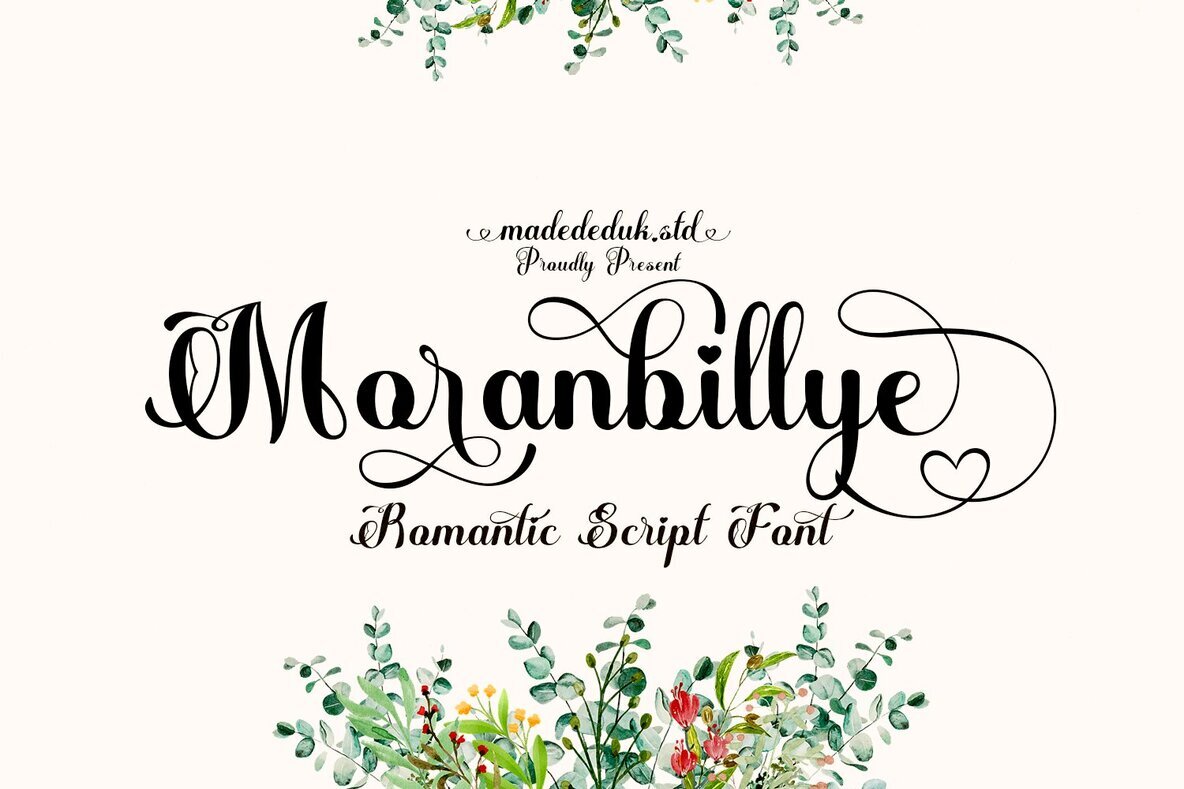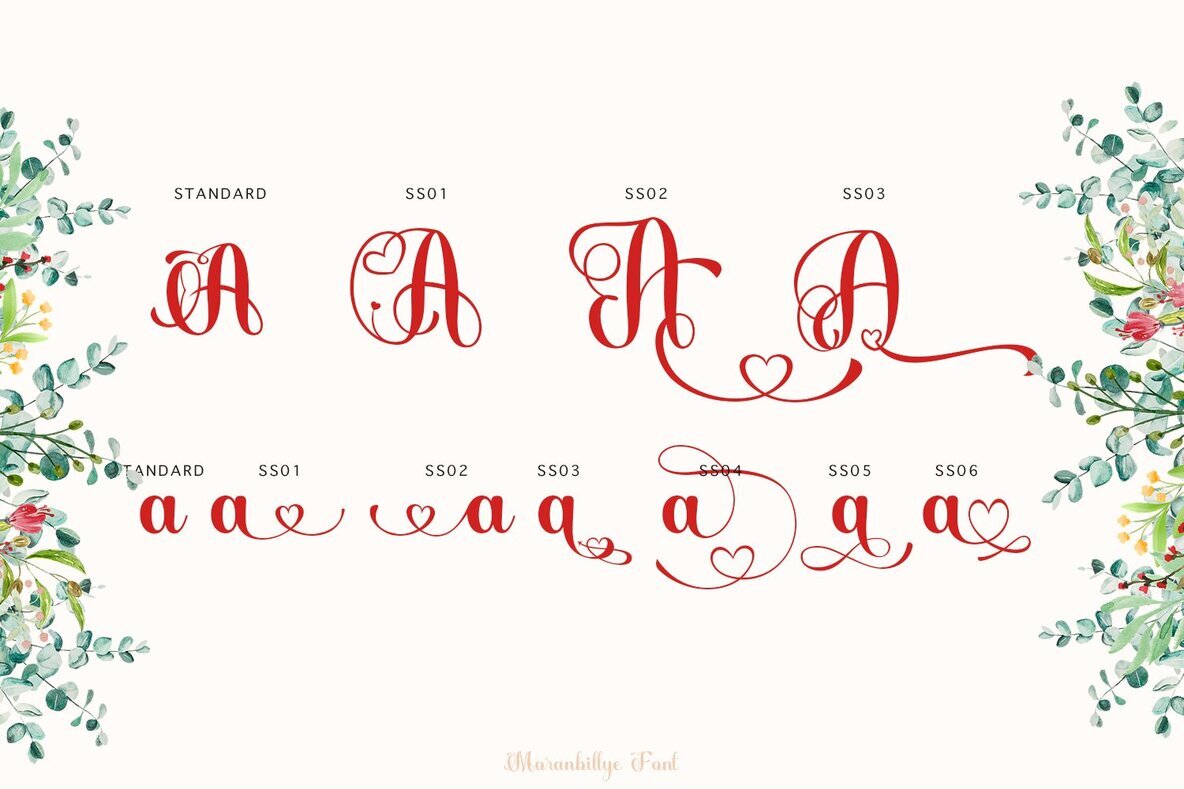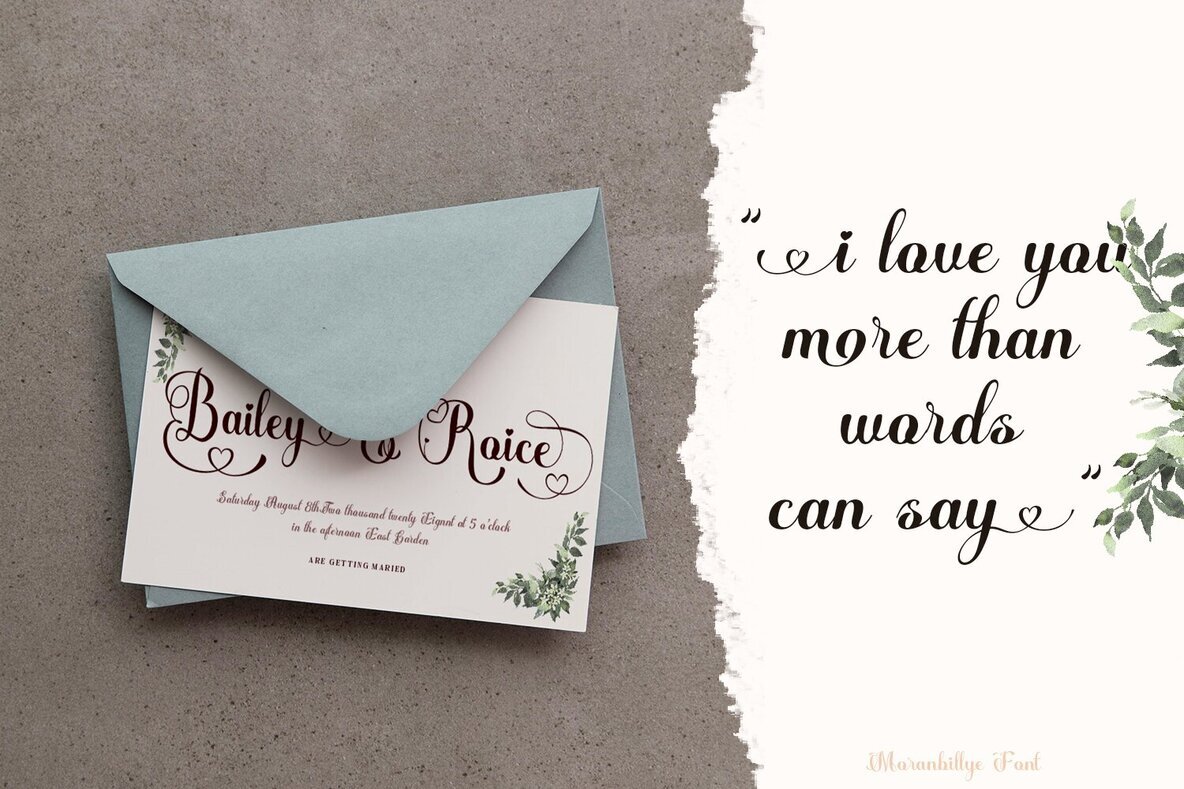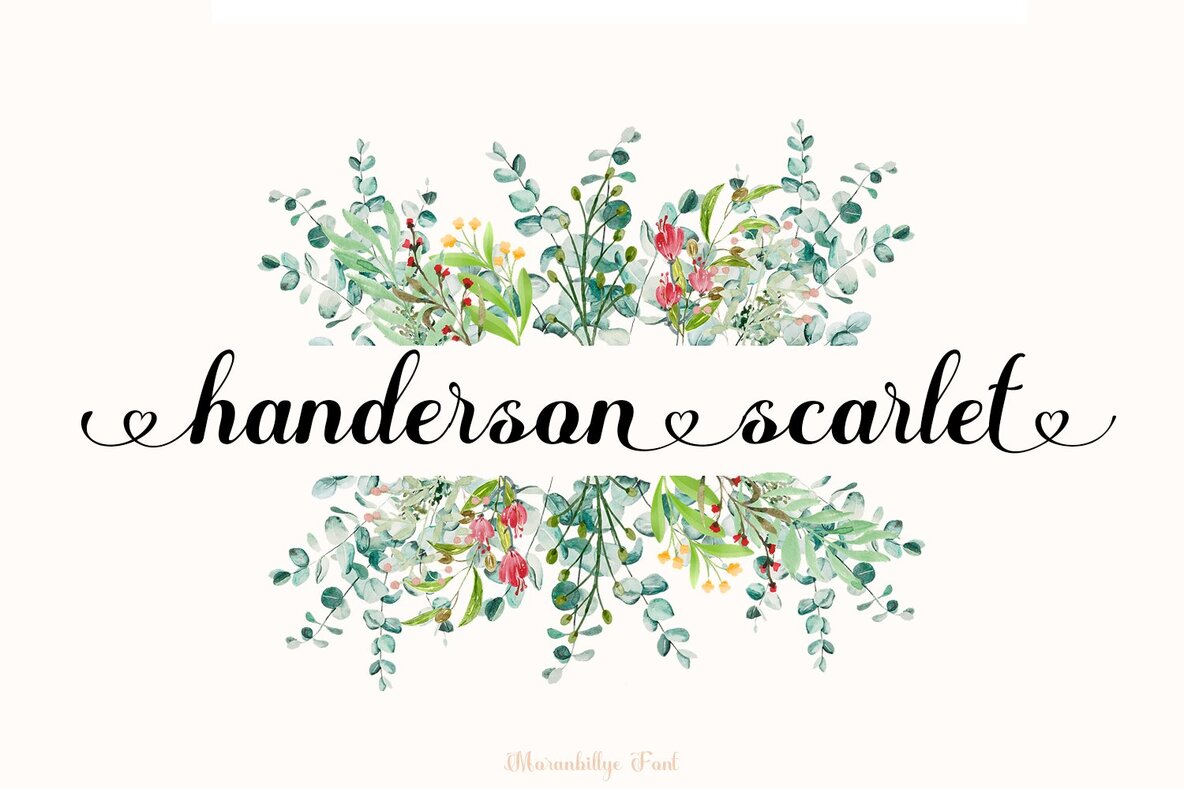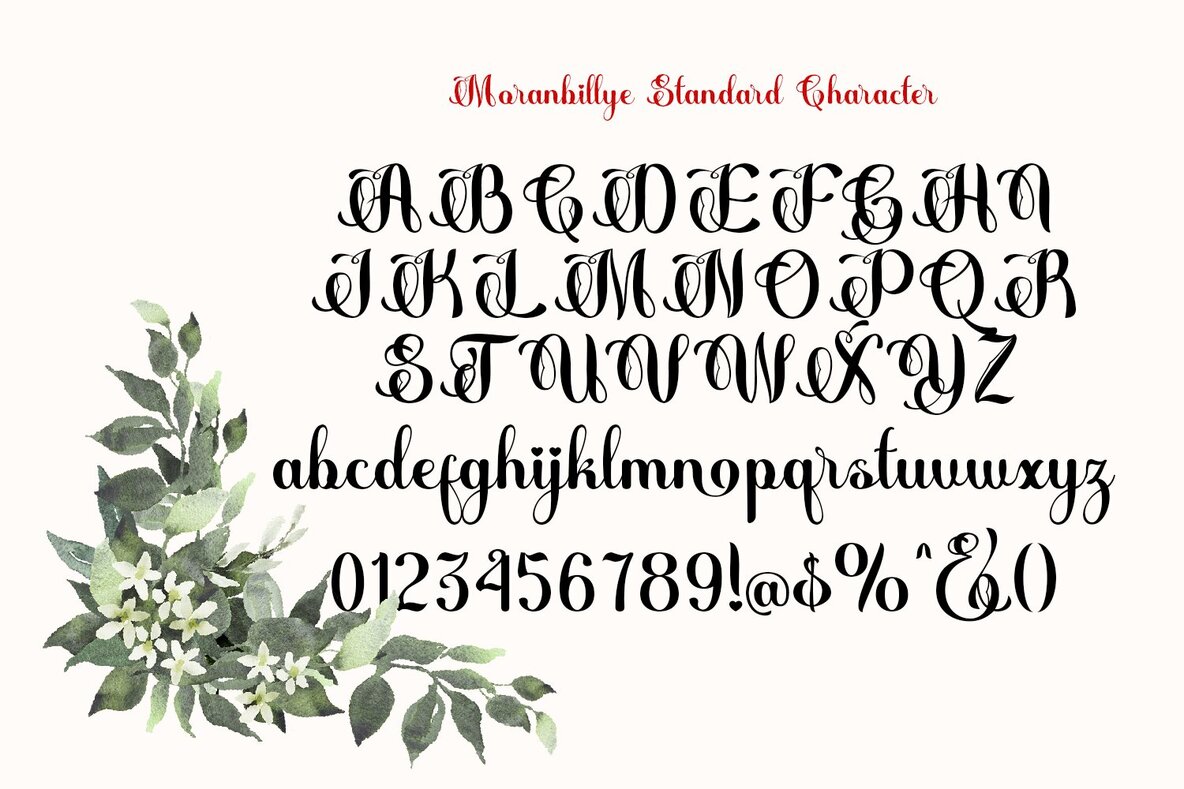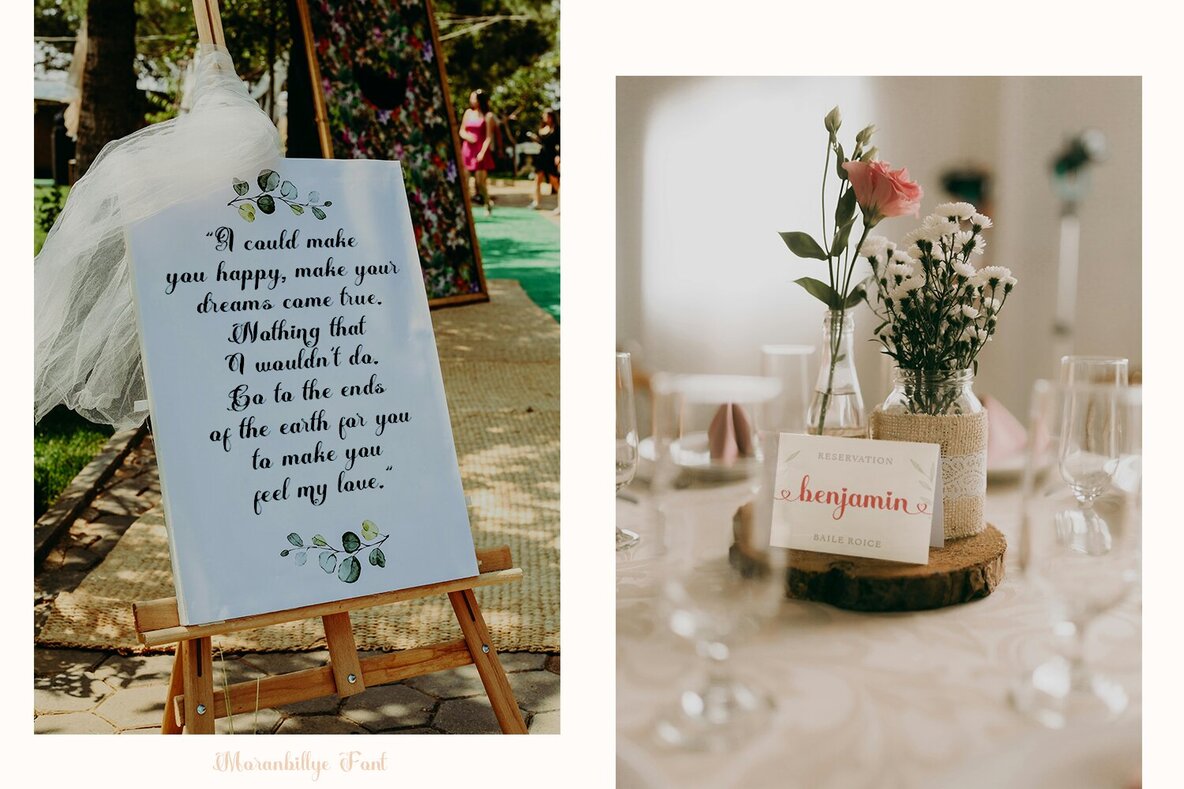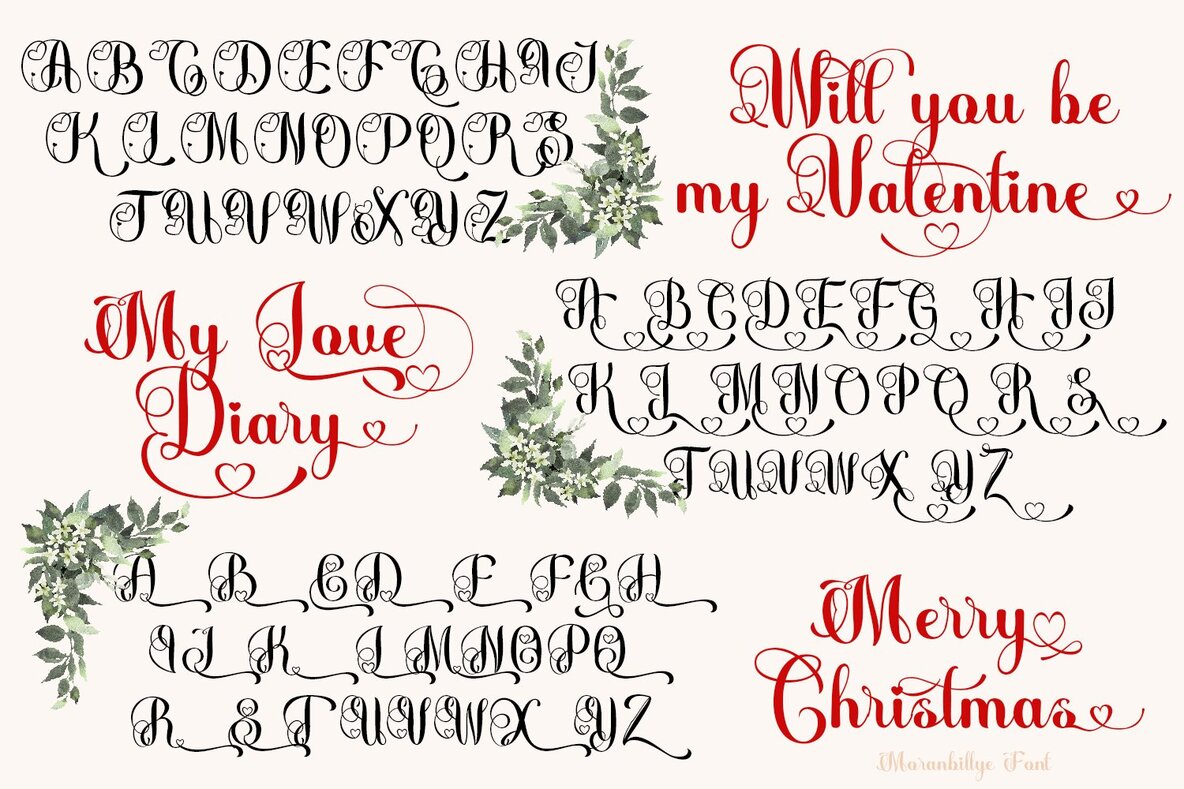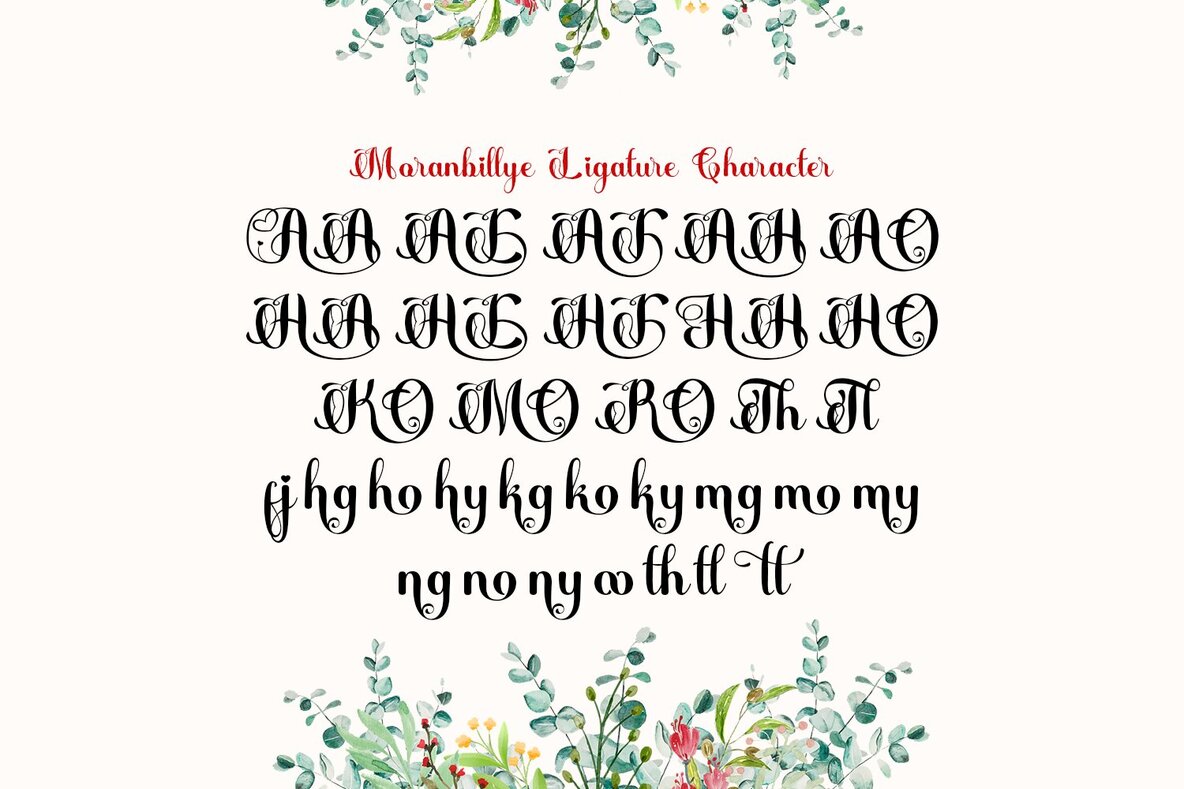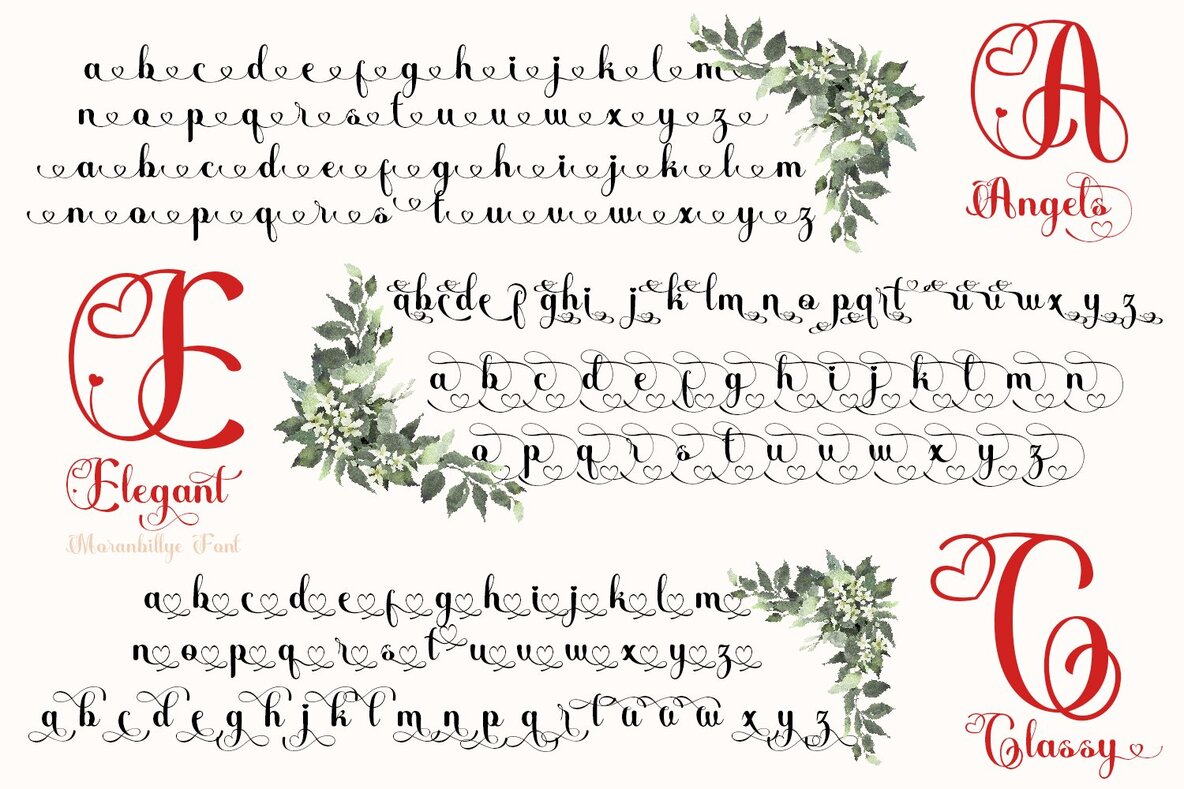
Moranbillye Font
Moranbillye is a stunning heart script font that draws inspiration from the grandeur of classical calligraphy. With its consistently thin strokes, this exquisite script exudes romance, luxury, and class, making it a perfect choice for projects that blend classic appeal with a modern twist. Whether you're working on branding, logotypes, or any creative endeavor that requires a refined touch, Moranbillye stands ready to enhance your design. Its readability, combined with a distinct personality, makes Moranbillye ideal for a wide array of uses. From quotes, labels, and social media posts to advertisements, product packaging, and logo designs, this font adds a sophisticated edge. Capture your audience’s attention in both digital and print formats, whether on posters, photography, invitations, or stationery. Moranbillye promises to enrich your work with elegance and charm.Moranbillye - A Script Font of Elegance